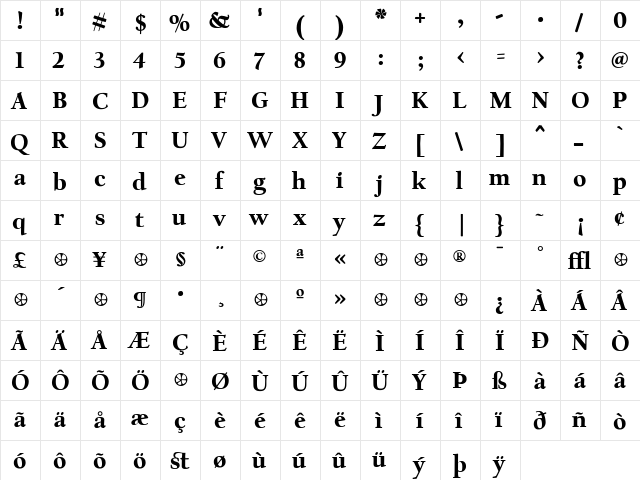
CalifornianText Bold
Design Context for CalifornianText Typeface
CalifornianText offers clean, dependable letterforms without strong stylistic allegiance, making it a practical choice for designers who need flexibility. Its bold stroke weight gives it real presence on the page.